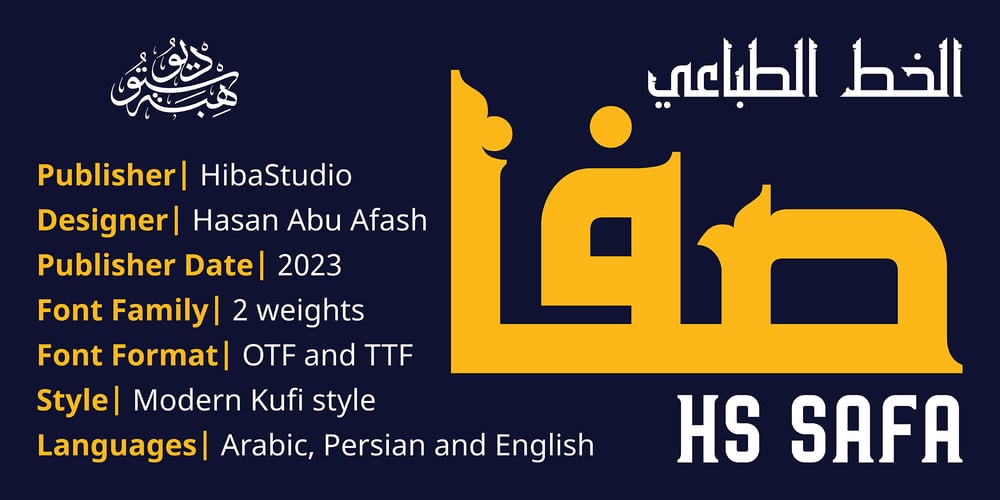
HS Safa
HS Safa font
HS Safa Font Family was designed by Hasan Abu Afash and published by Hiba Studio. HS Safa contains 2 styles and family package options. HS Safa, an elegant Arabic display typeface carefully crafted for book titles, creative graphic projects, and modern logos. Categorized under “titles,” it draws inspiration from the rules of Fatmic Kufi calligraphy, infusing a beautiful idea and special dimensions that preserve the allure of the Arabic font and its fixed rates. HS Safa is built upon the foundation of HS Sama font, but with a fresh and stunning molding (ornament) for the vertical strokes, adding a new dimension to its charm. This intricate detail enhances the overall visual appeal, making HS Safa a captivating choice for any design project. With comprehensive support for Arabic, Persian, and English languages, this typeface is versatile and accommodating. Available in two weights, Regular and Bold, it effortlessly integrates into the collection of contemporary Arabic Kufic fonts, catering to diverse design preferences. Whether seeking a modern Arabic font with a touch of uniqueness, HS Safa is a perfect addition to elevate any creative endeavor.